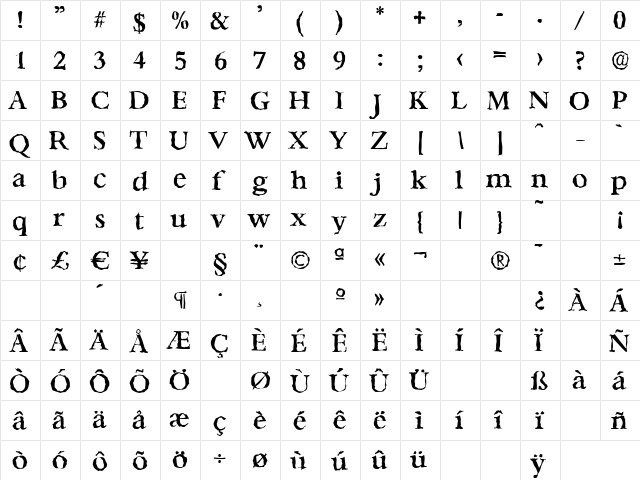
BernsteinRandom-Medium Regular Font Preview
BernsteinRandom-Medium Regular
BernsteinRandom-Medium Regular Font Details
Design Context for BernsteinRandom-Medium Typeface
BernsteinRandom-Medium takes a measured approach to typography — its balanced proportions and neutral character make it a reliable workhorse for both digital and print work.